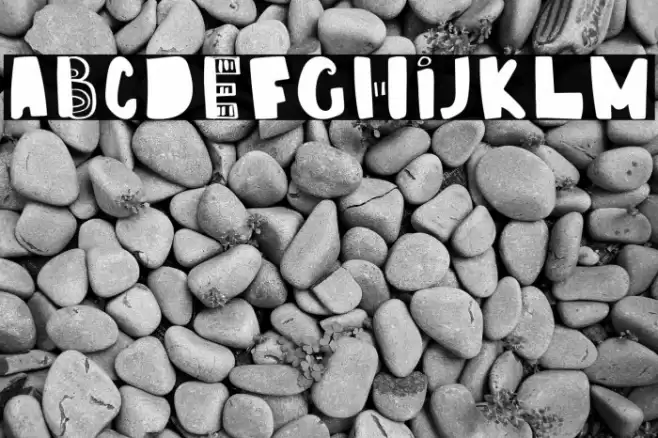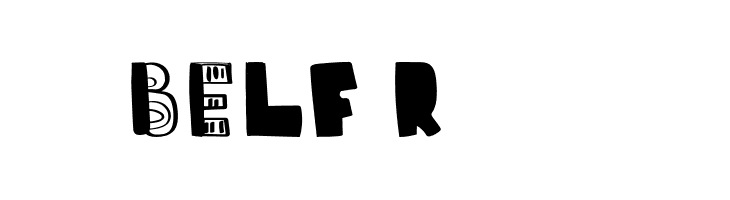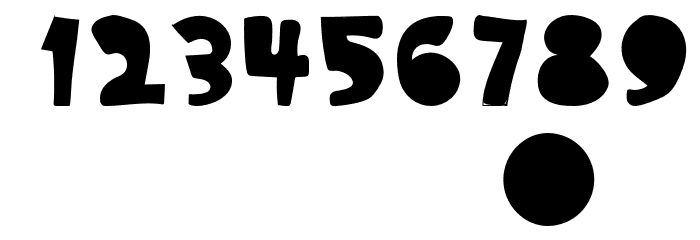
BELF-Regular Font
BELF-Regular Description
This font features a playful and eclectic design, with each character exhibiting unique and varied styles. The uppercase letters are bold and quirky, with some incorporating geometric patterns and others showcasing exaggerated curves. The numbers follow a similar style, maintaining a whimsical and bold appearance. The overall design is highly decorative, making it ideal for creative and artistic projects. The font's distinctiveness lies in its ability to capture attention with its unconventional forms, making it suitable for headlines and display purposes.
A playful and eclectic decorative font with bold, unique characters from Cartoon fonts.
- Proposed Projects: Ideal for creative projects such as posters, album covers, children's books, and branding that requires a fun and eye-catching typeface.